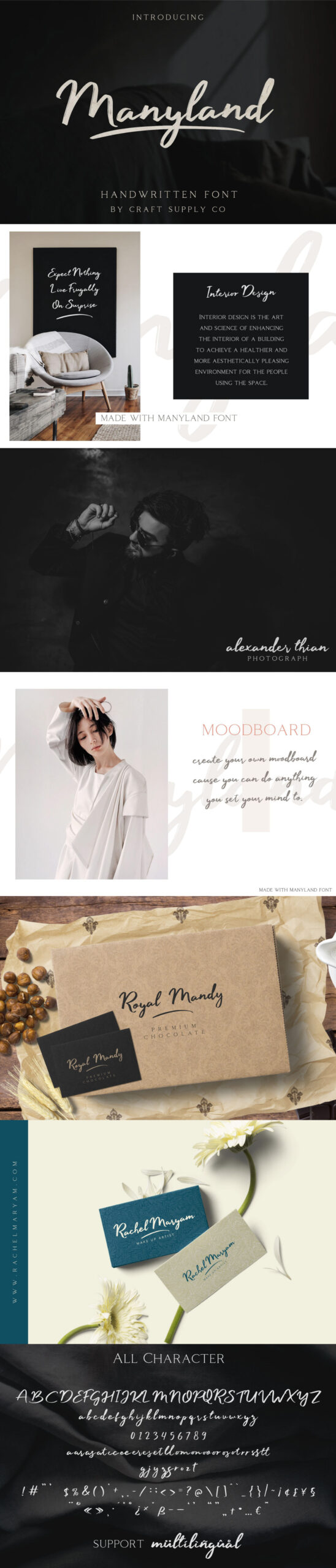
Natural and elegant, Manyland is a modern, monoline typeface. Created by Craft Supply Co., this font is the perfect choice for for wedding invitations, flyers, greeting cards, quotes and more. Free for personal use! For commercial use please check here.